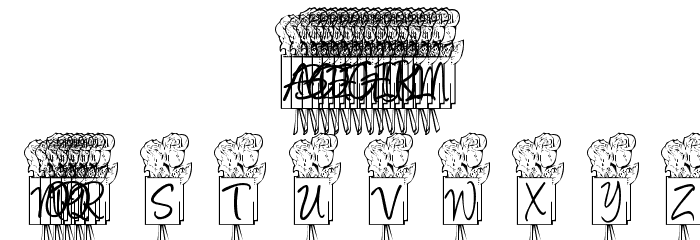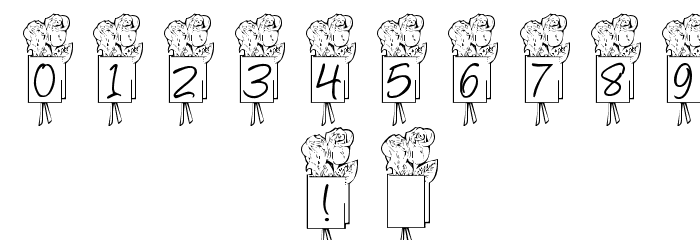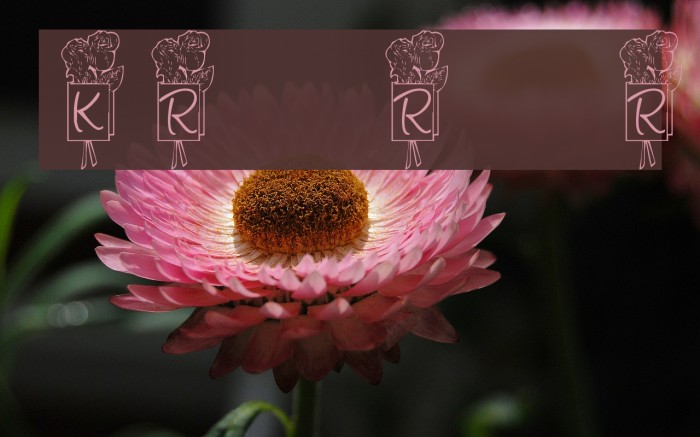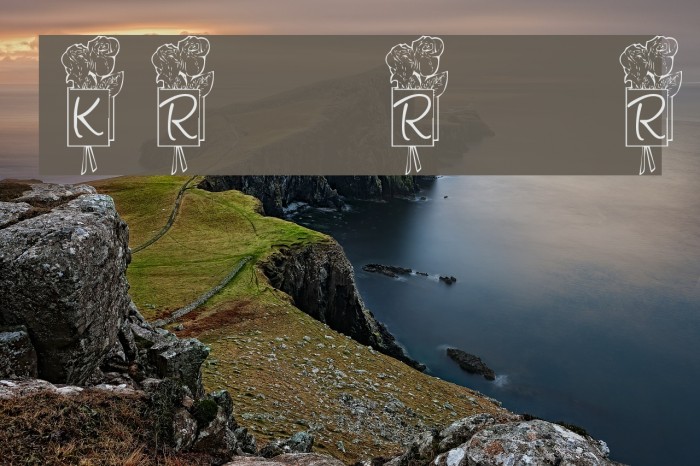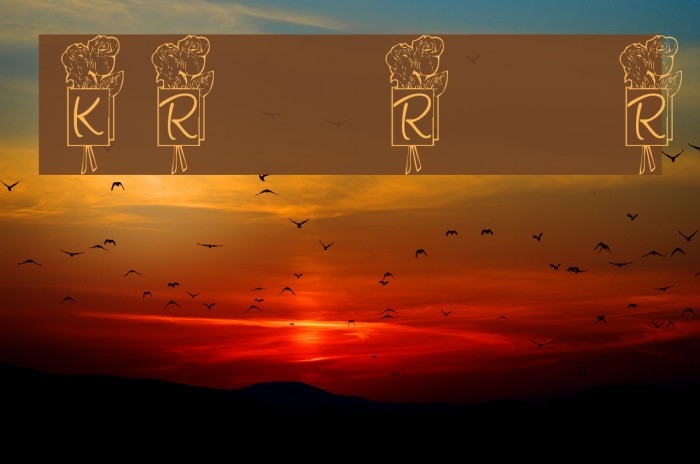
KR Ronny's Rose Font
This font features a decorative and artistic style, incorporating a unique floral motif with each character. The letters are intertwined with rose illustrations, creating a visually striking and ornamental appearance. The script-like characters are elegant and flow smoothly, adding a touch of sophistication and creativity. The font's design is intricate, with each letter seamlessly integrated into the floral theme, making it ideal for projects that require a romantic or whimsical touch.
An artistic font with floral motifs and elegant script characters.
- Proposed Projects: Ideal for wedding invitations, greeting cards, decorative posters, and branding materials that require a romantic or whimsical aesthetic.
- Use Case: Logos, Decorative text, Invitations